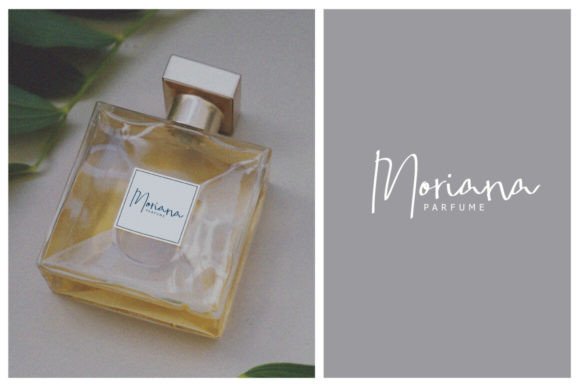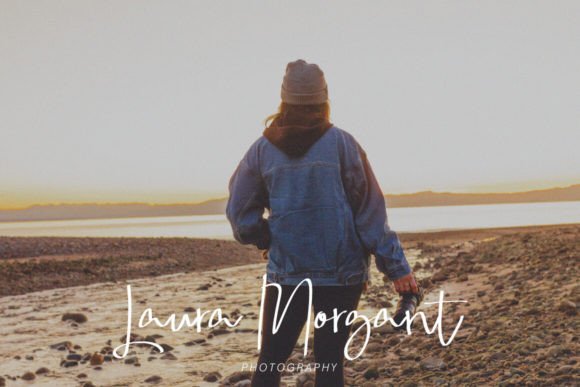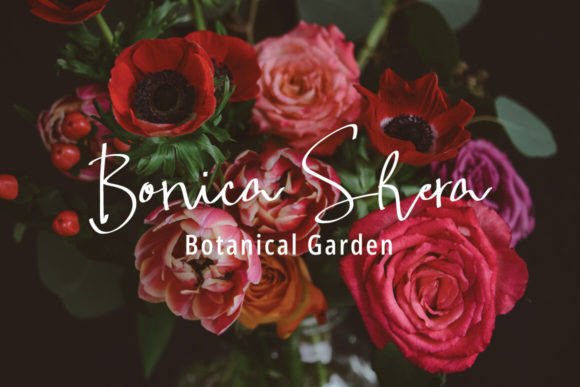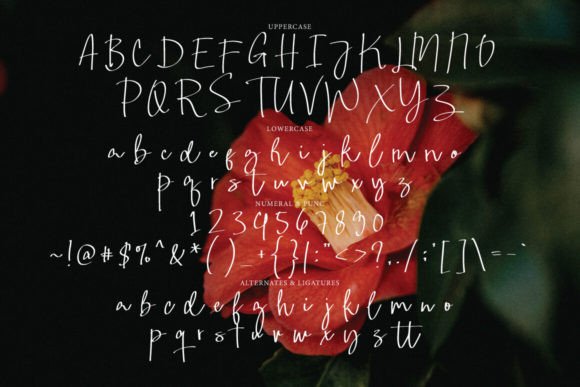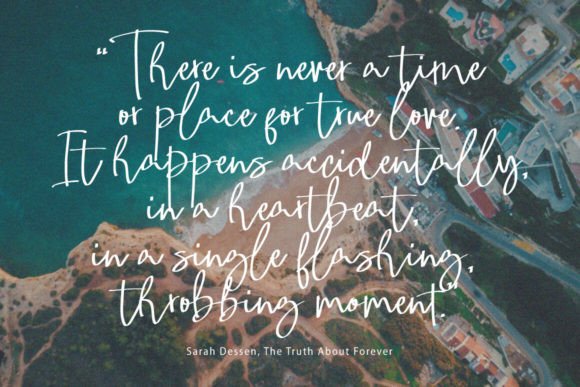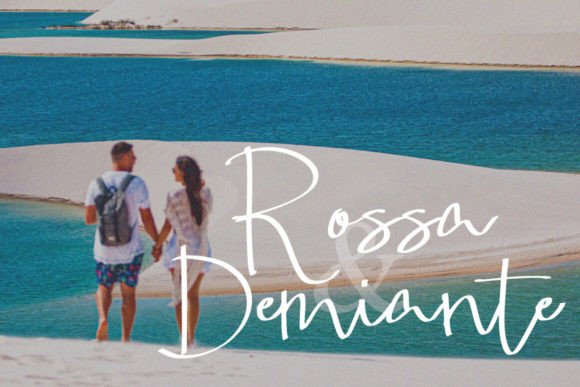
Introduction to Famous Voice Font
Famous Voice is a stylish signature font with a smooth, single-line design.
Its sleek and elegant strokes make it perfect for personal signatures, logos, or classy invitations The monoline flair adds a modern, clean touch to your text, making it both simple and sophisticated.